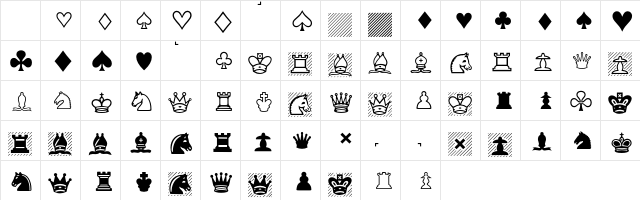
Complete GamesSports P01 glyph index. Displaying only characters natively supported by GamesSports P01 font.
GamesSports brings high-energy athletic personality to the page - its confident, muscular forms are built for impact.
Pro Tip: Use GamesSports in all-caps headlines where its athletic energy can fully express itself. Pair with a solid, simple sans for supporting text.